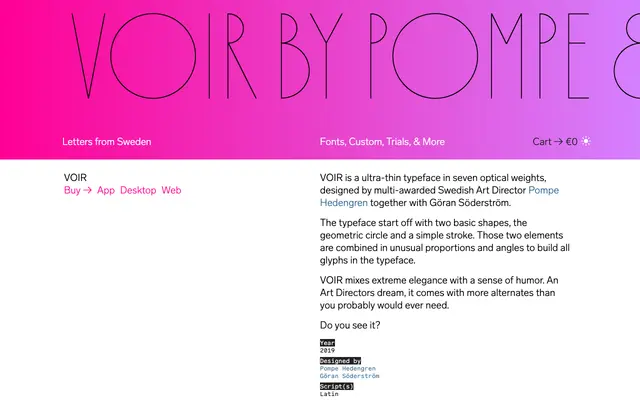
Voir
Letters from Sweden · Pompe Hedengren, Göran Söderström · 2019
An ultra-thin geometric display typeface built from just two shapes, a circle and a stroke, with an unusually large set of alternates for art direction work.
Designed by Swedish art director Pompe Hedengren and type designer Göran Söderström, Voir derives all its glyphs from a geometric circle and a simple stroke combined at unusual angles and proportions. Seven optical weights run from the extreme end of thin, and sixteen stylistic sets give art directors a wide palette of alternates rarely matched at this scale. The result sits somewhere between rigorous geometry and playful personality, making it well suited to editorial and poster contexts where precision and wit can coexist.
Built from a geometric circle and a simple stroke combined in unusual proportions, Voir is an ultra-thin display typeface with strong optical personality and an extensive alternate system, placing it firmly in the geometric display category.